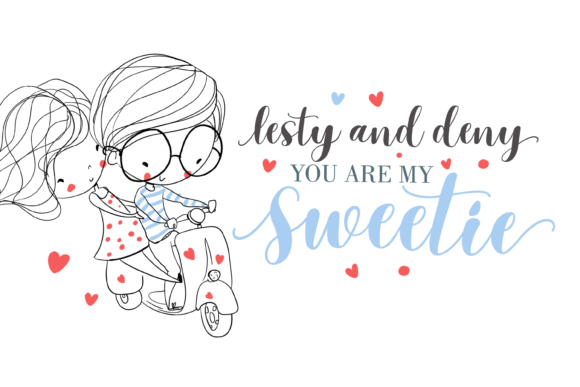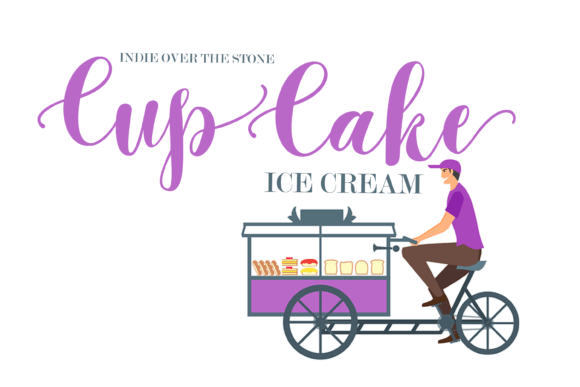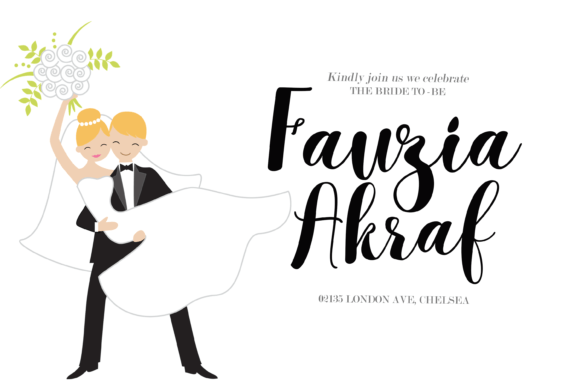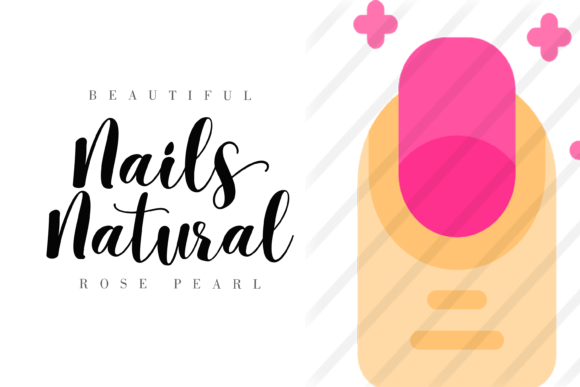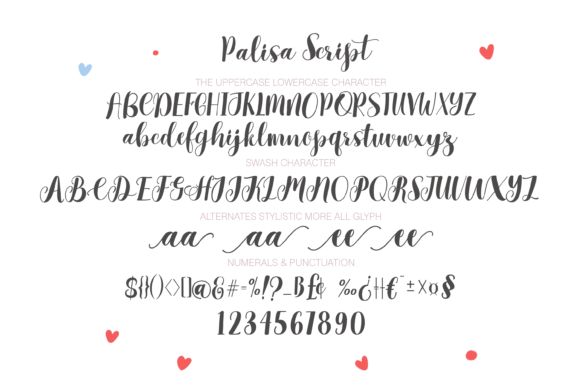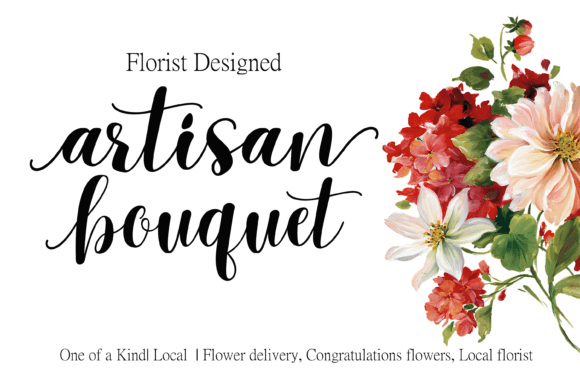
Introduction to Palisa Font Font
Fonts play a crucial role in design, and the Palisa Font font is a typeface that brings both character and versatility to any project. Whether you’re working on a branding project, a website, or a print design, the Palisa Font font offers a unique style that can elevate your work.
Palisa is a modern calligraphy script font.
Every single letter has been carefully crafted to make your text look beautiful With a modern script style, this font will be perfect for many different projects, for example, invitations, greeting cards, posters, name cards, quotes, blog headers, branding, logo, fashion, apparel, letter, stationery, and more.
Key Features of Palisa Font Font
Why Choose Palisa Font Font?
The Palisa Font font is more than just a typeface – it’s a design tool that helps you communicate your message with style and clarity. Its unique character set and versatile design make it suitable for a wide range of applications, from elegant invitations to bold headlines.
With its carefully crafted letterforms and balanced proportions, the Palisa Font font ensures readability and visual appeal across all mediums.
What makes Palisa Font font special?
The Palisa Font font stands out with its unique design, exceptional readability, and versatility across various design applications.